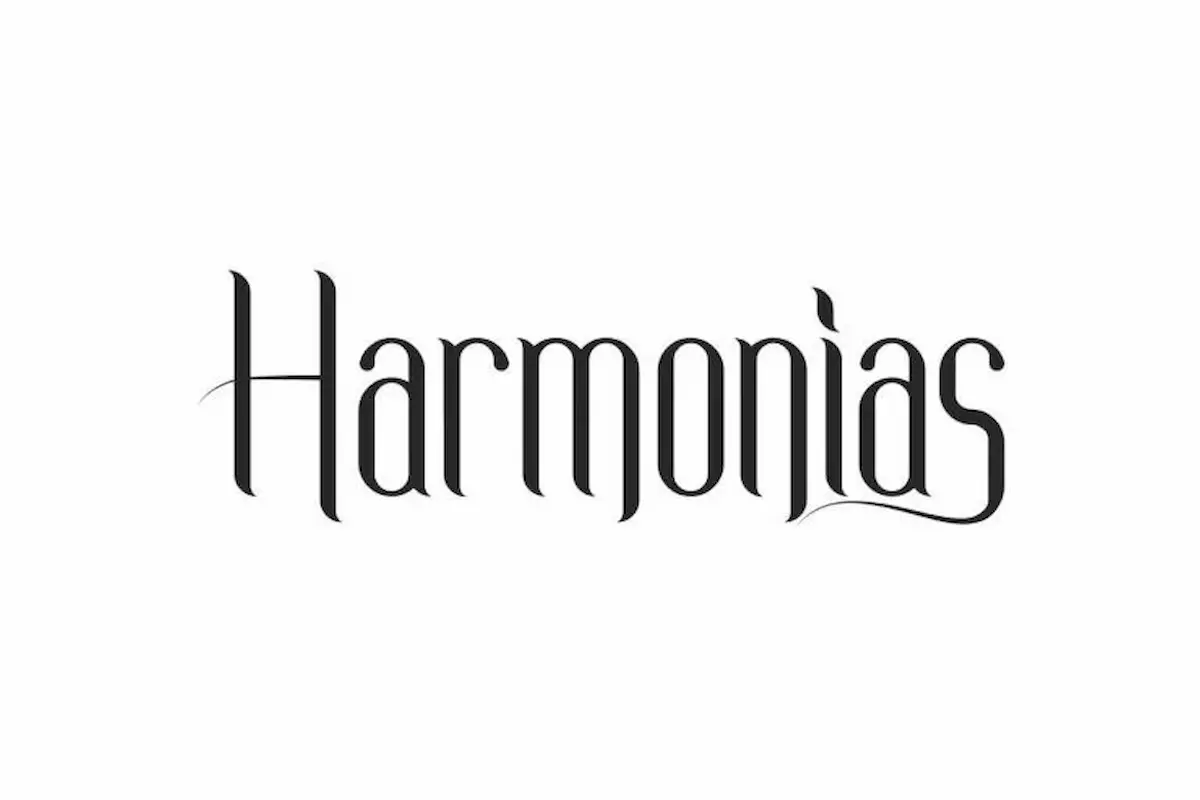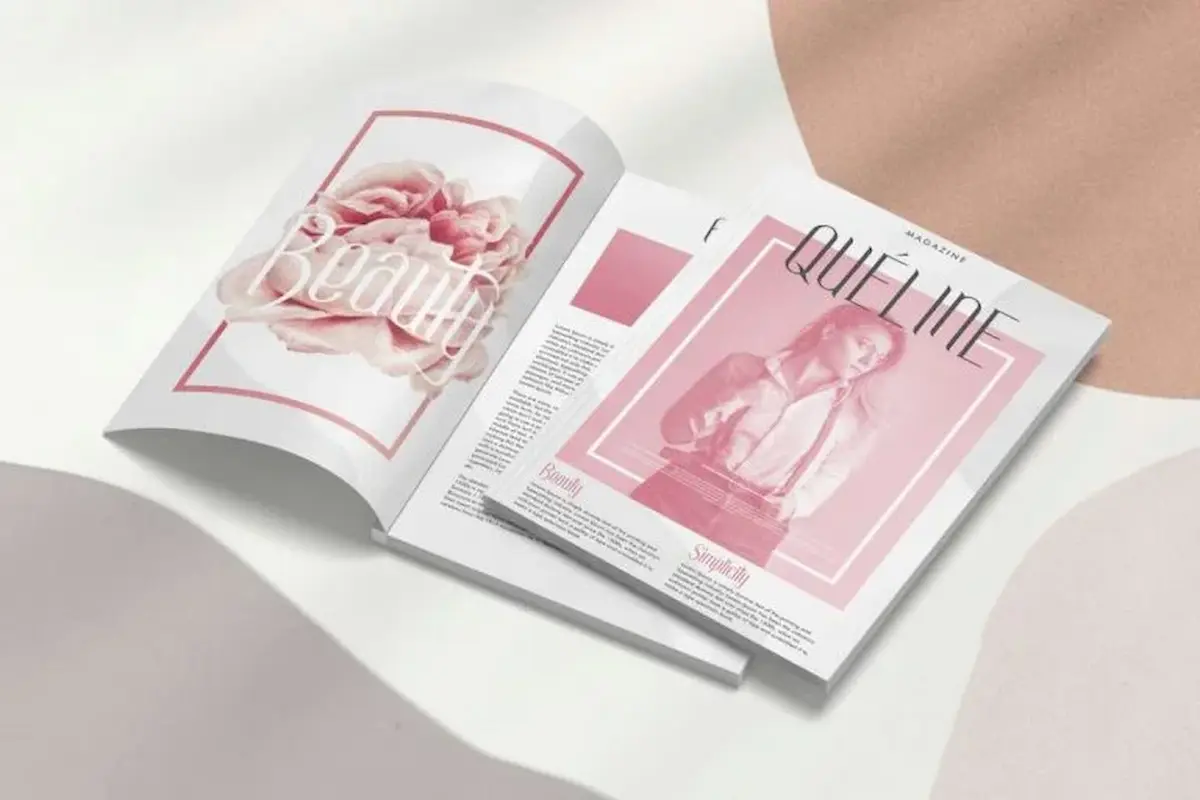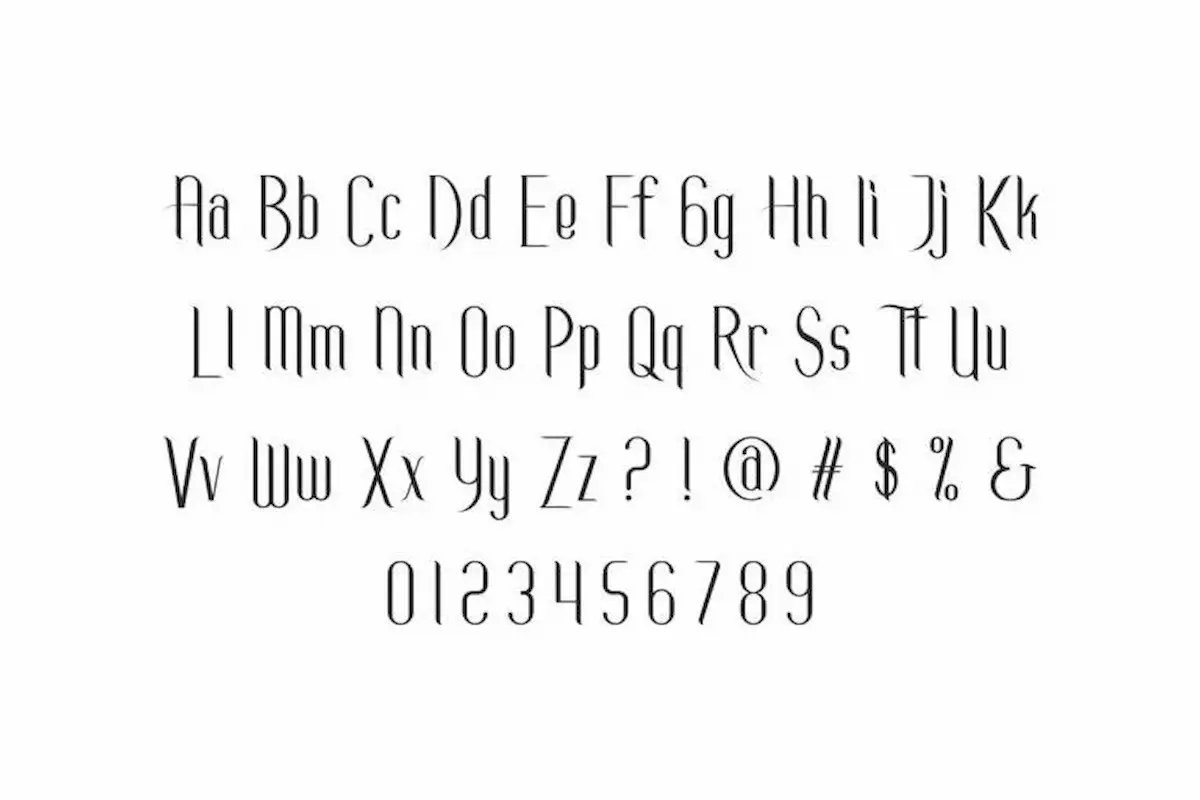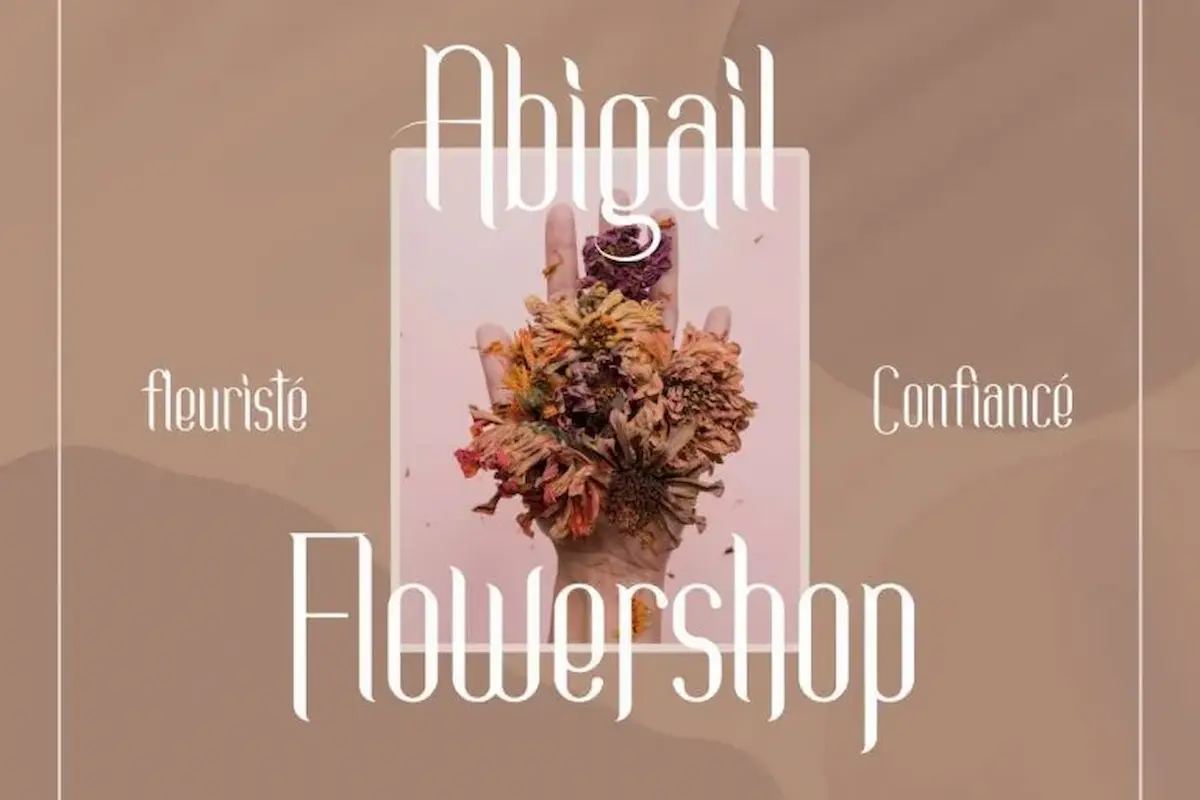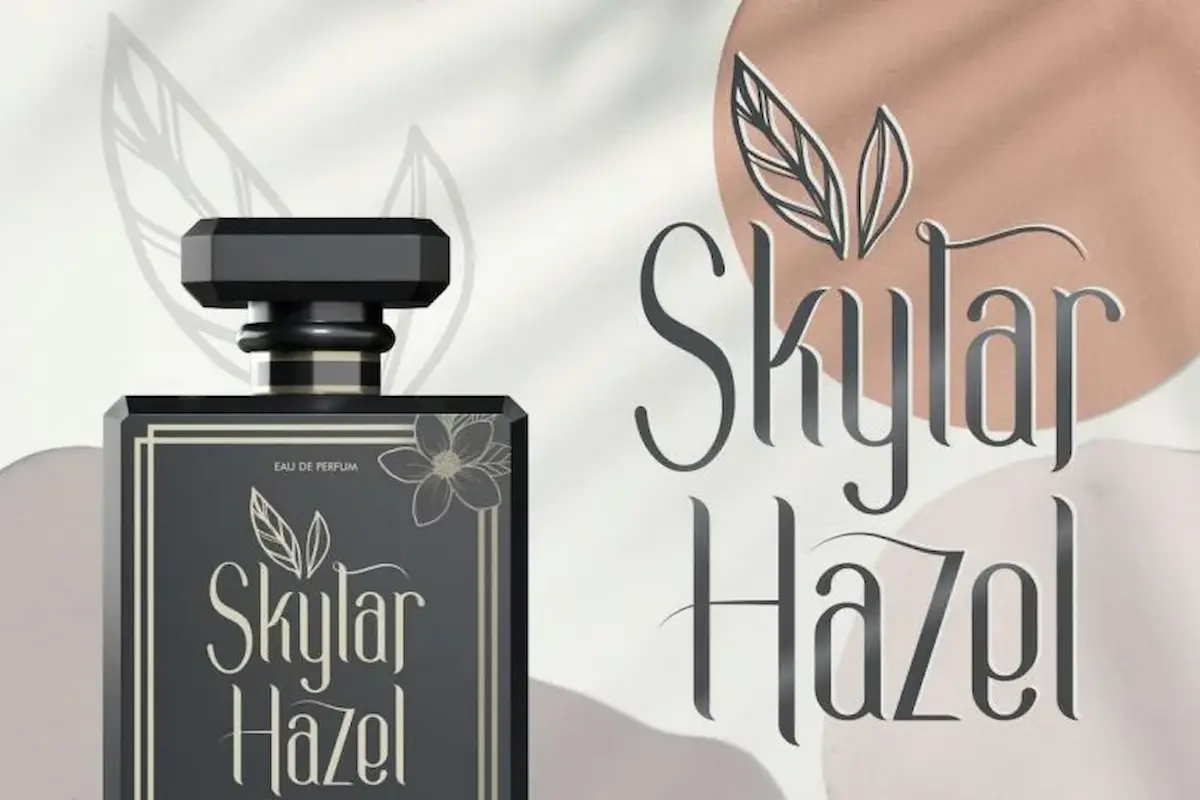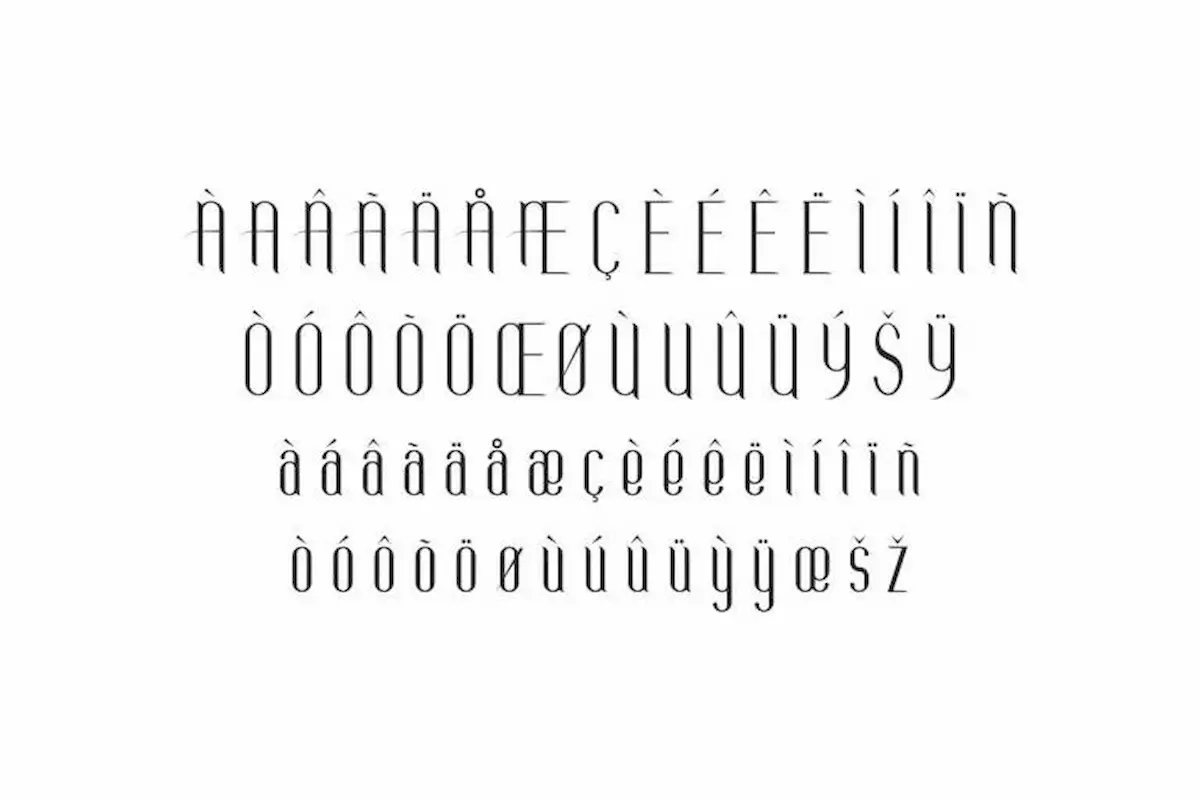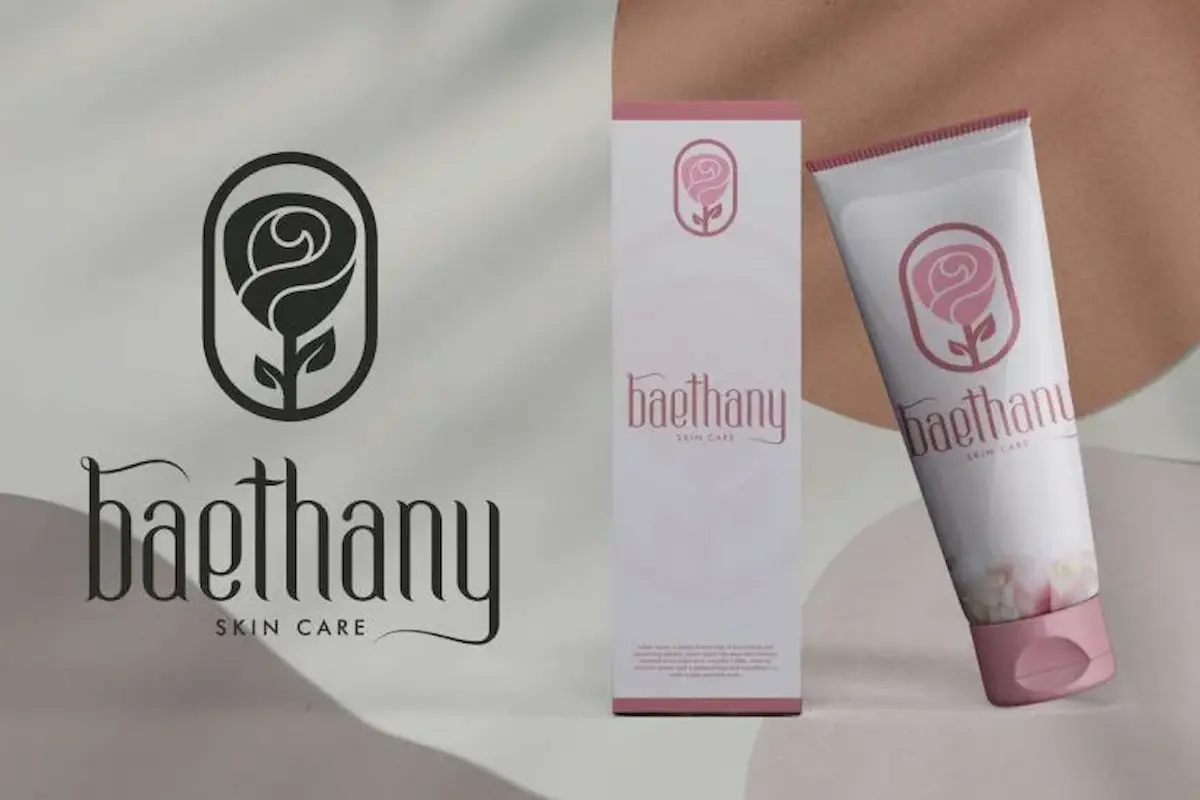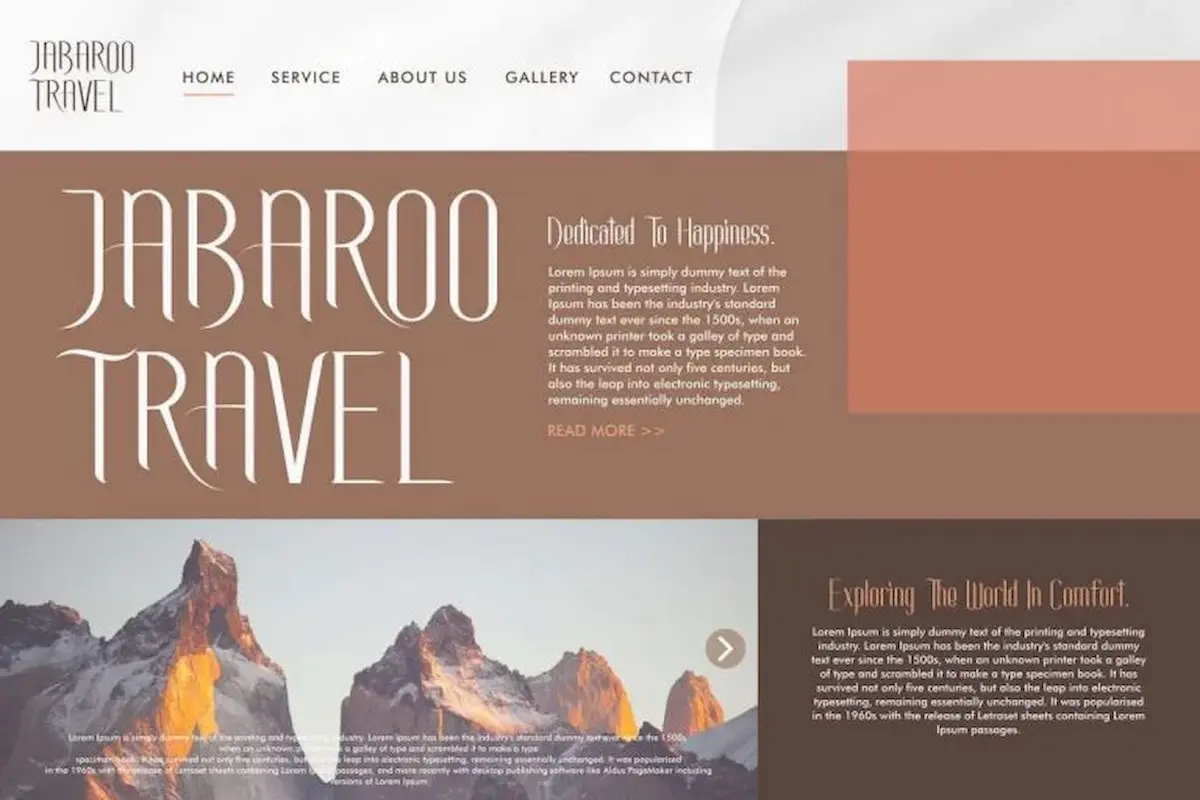
Harmonias Font is a minimalist modern display font by NihStudio, made in 2021. Harmonias Stylish Font will great for many industries : magazine, fashion, cosmetic, wedding, florist, or vintage projects.
Harmonias Font is a modern stylish display font family designed by NihStudio. Try the font by typing your own text below. Please note that the test font below is a demo file, so some specimens/ characters will not show up.
Handcrafted here in our Studio , Indonesia. Harmonias Font comes with many alternative characters and ligatures to make it flowless and stunning. Harmonias Font will be great for many business and industries including cosmetic, beauty, education, wedding, finance, fashion, houseware etc
This font has a stunning characters set, perfectly managed with well spaced and kerning. Accessible in the Adobe Illustrator, Adobe Photoshop, Adobe InDesign, even work on Microsoft Word.